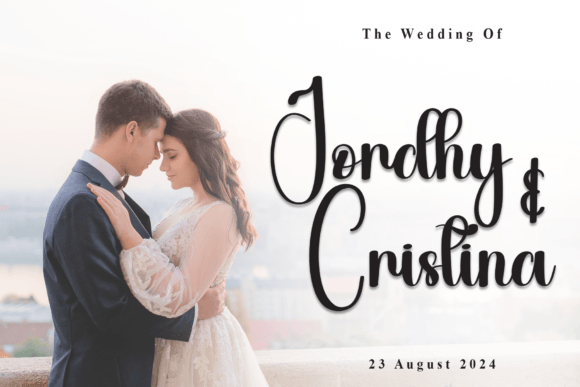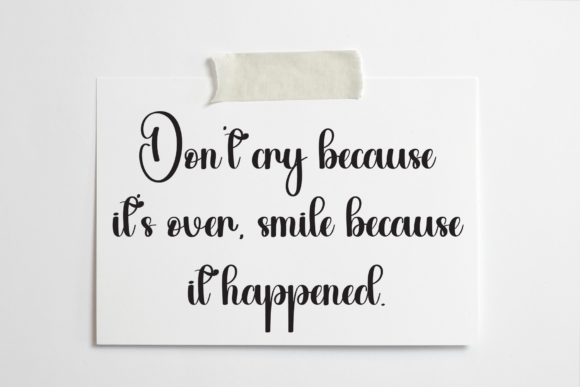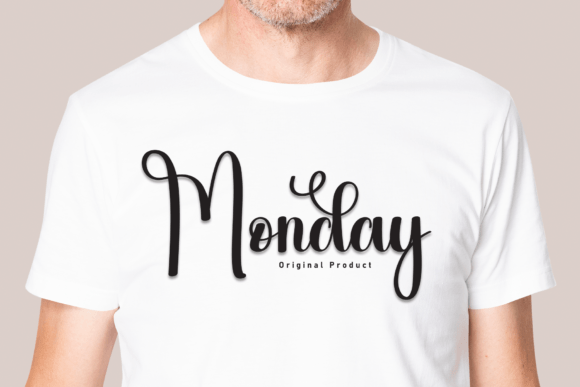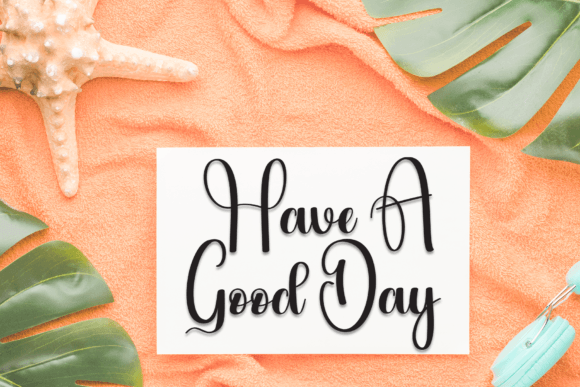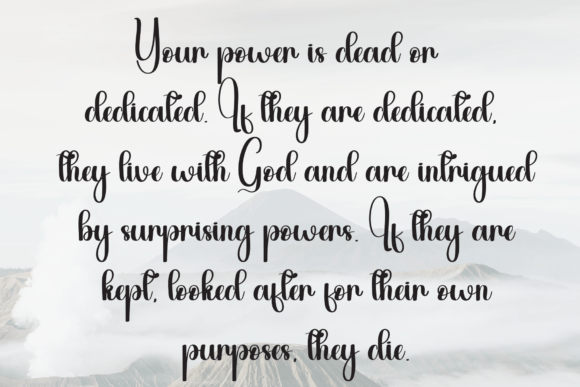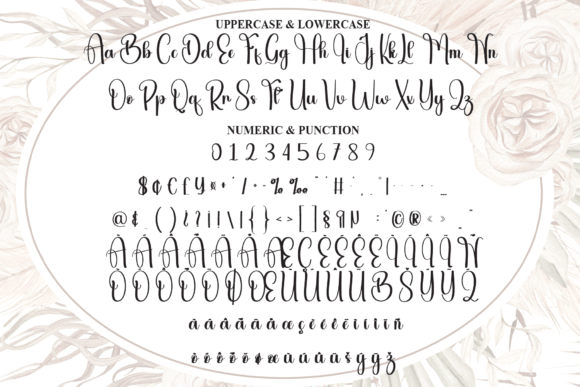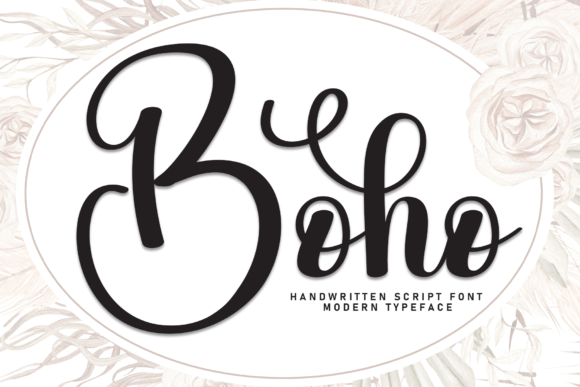
Have you ever found yourself staring at a blank canvas, feeling the urge to create something beautiful and unique? Maybe it’s a wedding invitation, a greeting card, or a social media post that needs a dash of personality. Whatever it is, we’ve got you covered. Introducing Boho Font, a charming handwritten display font that exudes sweetness and warmth.
Crafted meticulously to infuse your creations with an amiable and engaging feel, Boho Font is your go-to choice for designs that resonate with a light-hearted, joyful touch. Its playful vibe and gentle friendliness make it the perfect addition to any project that needs a little extra love. Whether you’re a seasoned designer or just starting out, Boho Font is a valuable tool that will help you bring your ideas to life in a way that’s both captivating and authentic.
Boho Font Key Features
- Font Family: A unique, hand-drawn font with a bohemian feel, perfect for creative projects.
- Size: The font comes in 6 different weights (Thin, Light, Regular, Medium, Bold, Black) to cater to various design needs.
- Unique Characteristics: Distinctive brushstrokes, organic shapes, and a relaxed, handcrafted feel make the Boho Font stand out.
Boho Font Review
As a designer, I’ve had the chance to work with the Boho font, and I’m here to give you my honest opinion.
- ✨ Unique aesthetic: The Boho font has a distinct, eclectic feel that’s perfect for projects that need a bit of bohemian flair.
- ✨ Versatility: This font works well for a wide range of applications, from fashion and lifestyle brands to music and art projects.
- ✨ Easy to read: Despite its ornate feel, the Boho font is surprisingly easy to read, making it a great choice for body text.
- ⚠️ Limited legibility at small sizes: While the Boho font is easy to read at larger sizes, it can become quite difficult to decipher at smaller sizes.
- ⚠️ Limited support for non-English languages: The Boho font may not be optimized for languages with non-Latin scripts, which could limit its use in certain contexts.
Overall, I think the Boho font is a great choice for designers looking to add a bit of personality to their projects. While it may have some limitations, its unique aesthetic and versatility make it a valuable addition to any design toolkit.
Getting the Most Out of Boho Font
For best results, pair the Boho font with complementary fonts and colors. Use it for titles, headings, and decorative text to add a bohemian touch to your designs.
Boho font is ideal for:
– Travel and adventure branding
– Artistic and creative projects
Alternatives to Boho Font
Great Vibes is a beautiful, handwritten script font perfect for creating a relaxed, bohemian atmosphere. It’s ideal for use in titles, quotes, and other design elements where a touch of elegance is needed.
Compared to Boho Font, Great Vibes has a more refined and polished look, making it suitable for a wider range of design applications.
Pacifico is a stylish, cursive font that exudes a carefree, beachy vibe. It’s perfect for use in designs that require a touch of whimsy and playfulness.
Pacifico has a more fluid, organic feel compared to Boho Font, making it ideal for creating a sense of movement and energy in your designs.
Dancing Script is a lively, handwritten font that’s perfect for adding a touch of excitement to your designs. It’s ideal for use in titles, headings, and other design elements where a sense of movement is needed.
Compared to Boho Font, Dancing Script has a more energetic and dynamic feel, making it suitable for a wide range of design applications, from fashion to entertainment.
Alex Brush is a elegant, handwritten font that’s perfect for creating a sense of sophistication and refinement. It’s ideal for use in designs that require a touch of luxury and elegance.
Alex Brush has a more refined and polished look compared to Boho Font, making it suitable for use in high-end design applications, such as fashion and luxury brands.